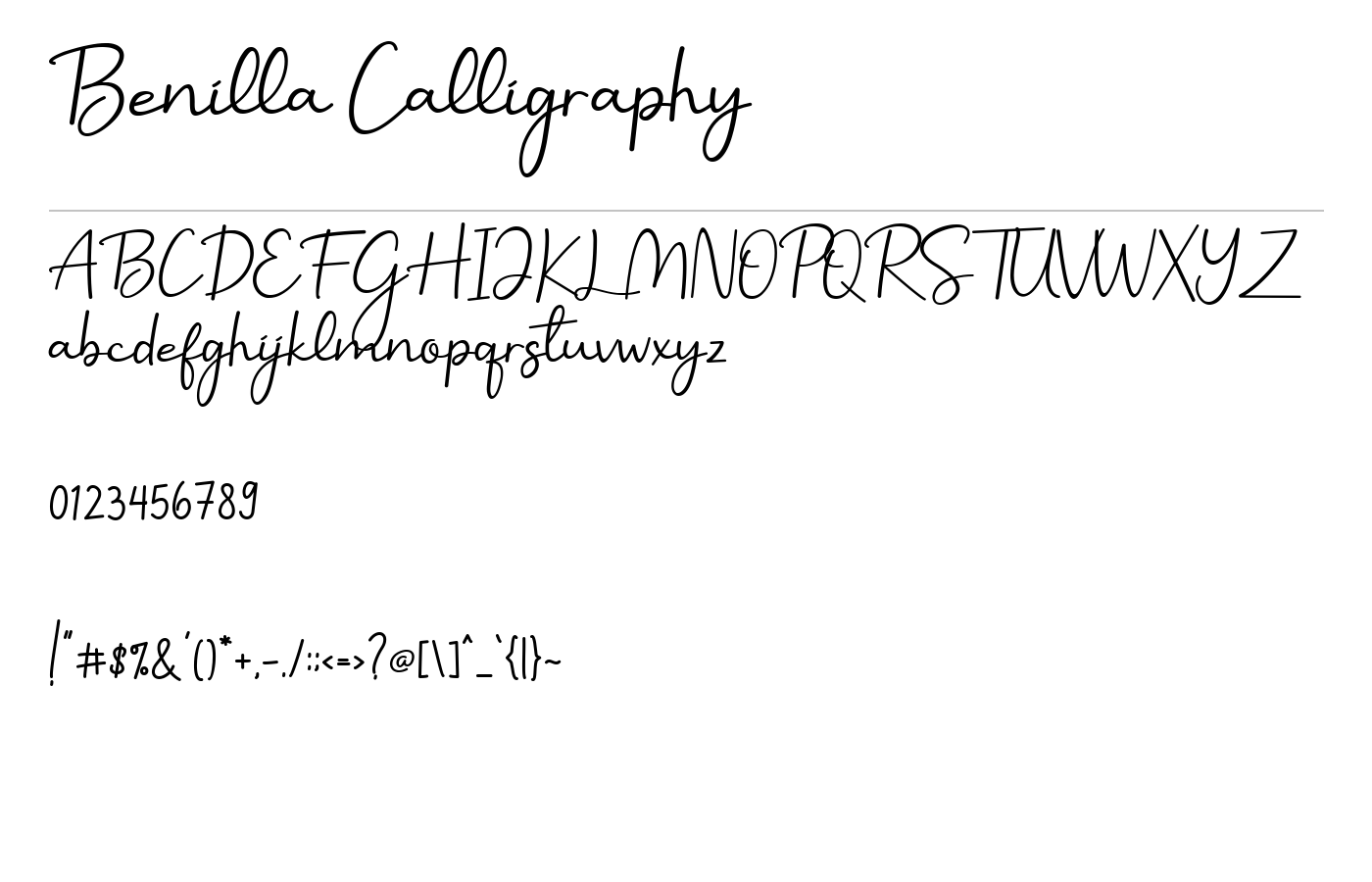
Benilla Calligraphy is a delicate and elegant script font with a light weight and a natural, handwritten feel. Its tall, narrow letterforms with smooth, flowing strokes create a charming and personal touch, making it ideal for invitations, branding, and creative projects that seek a friendly yet refined style. This font works wonderfully for adding a sense of warmth and sophistication without feeling too formal or rigid.
Benilla Calligraphy Font
About Benilla Calligraphy Font
| Font family | Benilla Calligraphy Font |
| Designer | AEN Creative Studio 2020 |